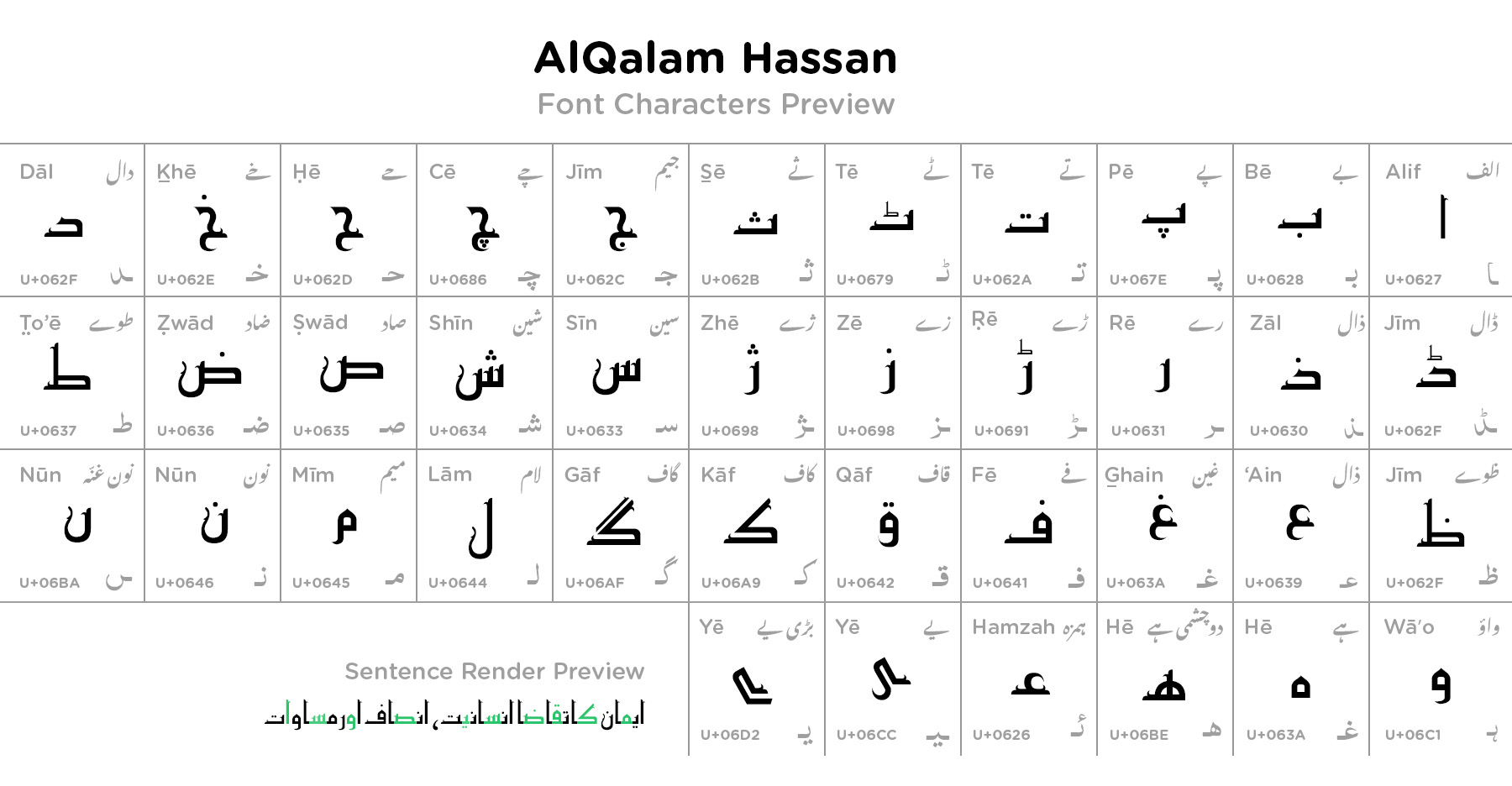
Al Qalam Hassan, crafted by font designers Attari Qadri and Muhammad Ishtiaq Ali Attari from Faisalabad, Pakistan, is a bold and decorative Urdu font released on October 5, 2017. Inspired by the Naskh script, this font displays modernity with dynamic thick strokes and intricate serifs, offering a captivating visual appeal. With 444 characters and 497 glyphs, this decorative font ensures compatibility across Urdu, Arabic, Latin, Persian, and more languages, making it a versatile choice for diverse projects. However, its low legibility on digital screens, attributed to its intricate design elements, makes it best suited for short text formats. The font's thick and dynamic strokes and impactful and constant serifs create a striking impression that is ideal for branding, advertising, posters, invitations, gift cards, and storybook covers. Moreover, it has varying thicknesses throughout the letters, and its edges have a unique shape inspired by traditional calligraphy. Despite its decorative nature, Al Qalam Hassan maintains a sense of modernity and sophistication, elevating any design it graces with its unique aesthetic charm and captivating presence.